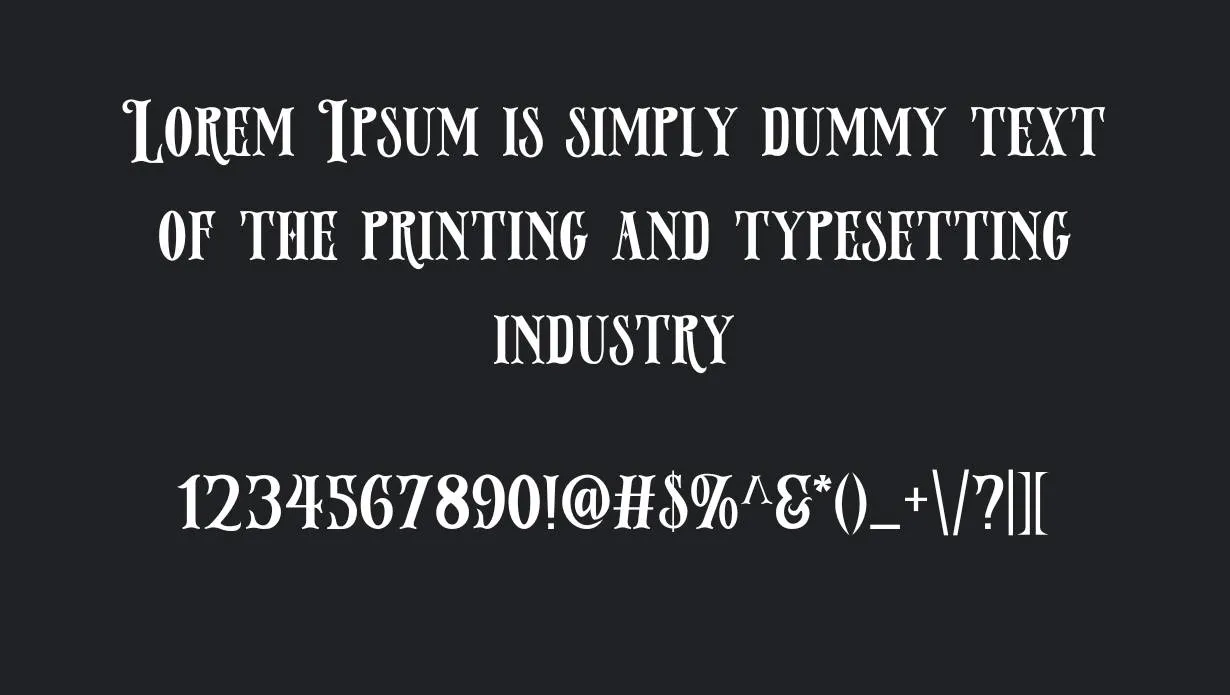
Stay Alive font injects excitement and energy into your words, making it an excellent choice for game titles or action-packed posters.
The font’s weight pulsates with excitement, and its dynamically proportioned width adds movement and life to your message. Let Stay Alive be the heartbeat of your adventure, ensuring your words burst with energy and captivate the attention of thrill-seekers.